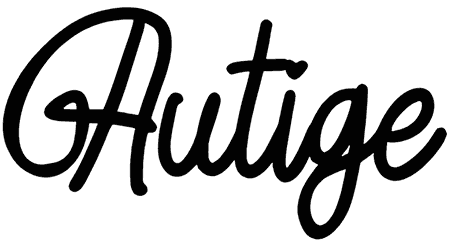
Autige Font
With a retro and magical vibe, Autige is here to provide your design with a unique decor. This handwritten font with realistic hand art curves will serve as a distinct illustration for social media graphics, T-shirts, co…
With a retro and magical vibe, Autige is here to provide your design with a unique decor. This handwritten font with realistic hand art curves will serve as a distinct illustration for social media graphics, T-shirts, comics, and a lot more the same. Even with no offer for numerals or punctuation, Autige will act well and show off your designs.